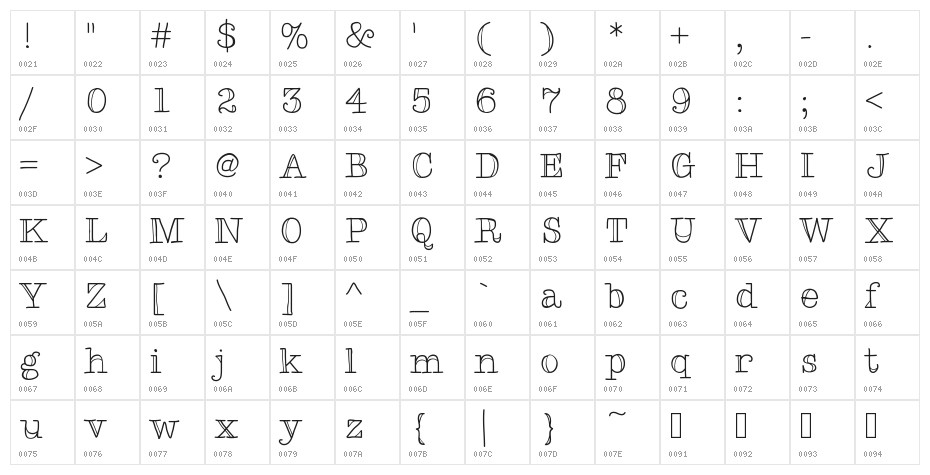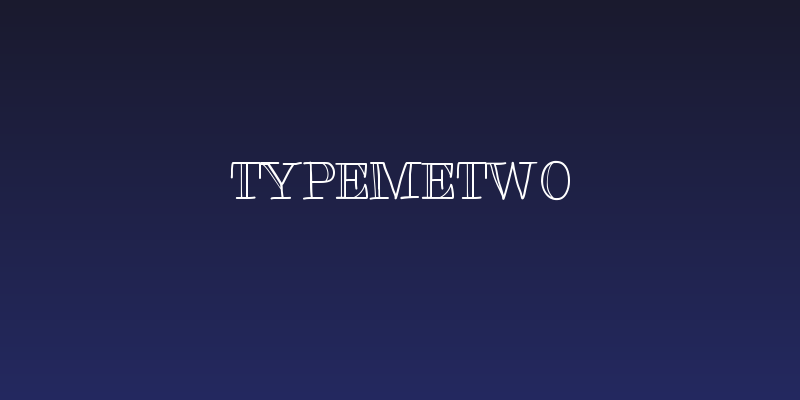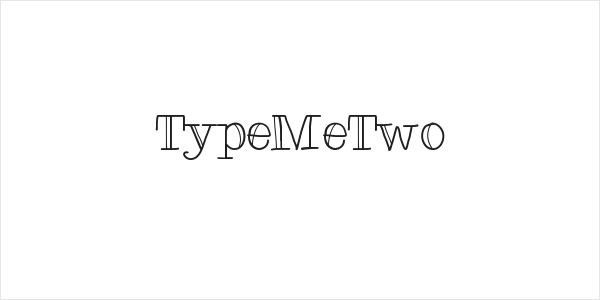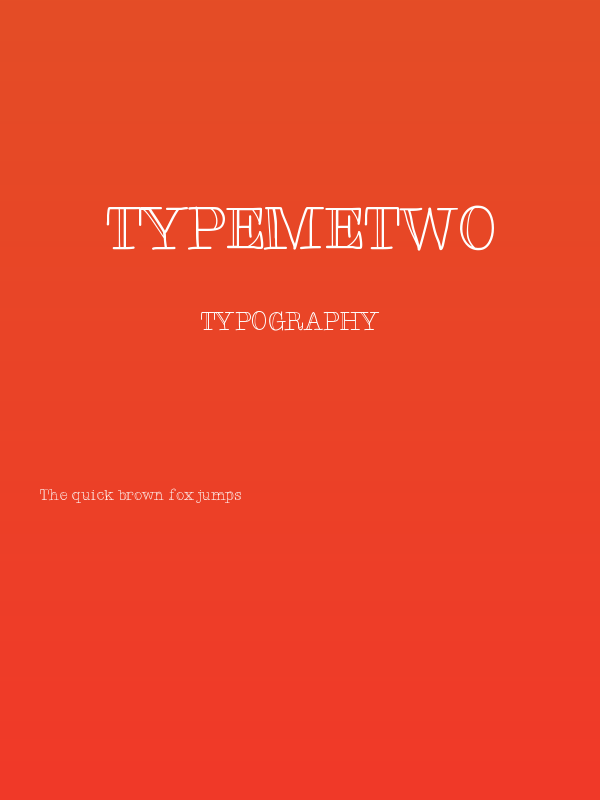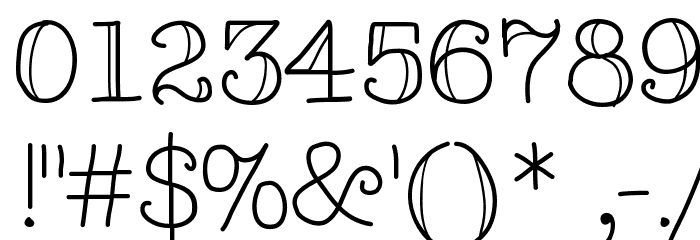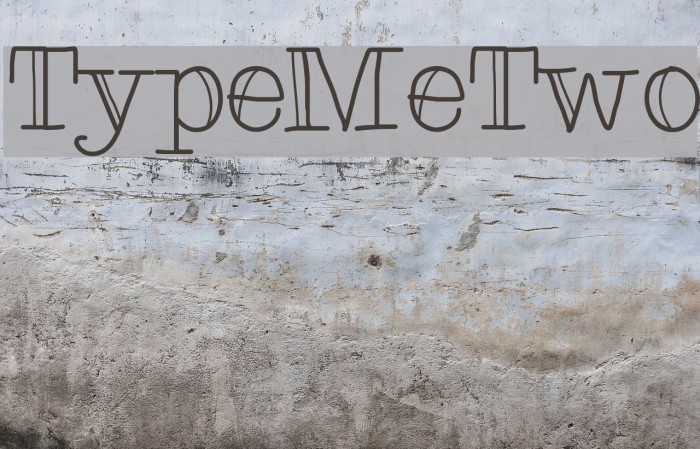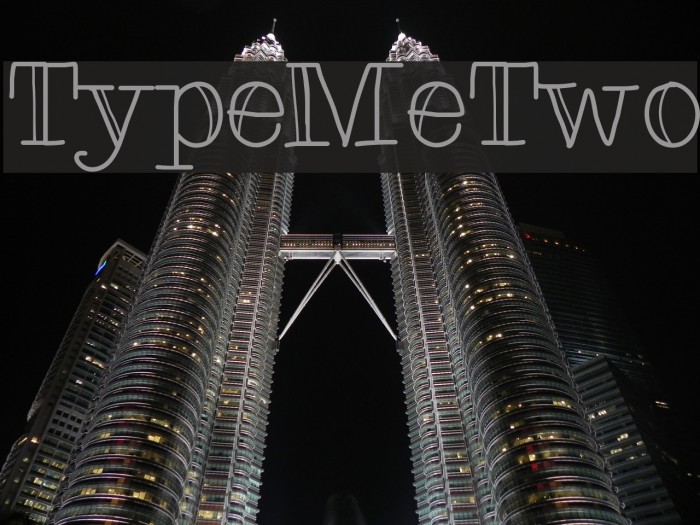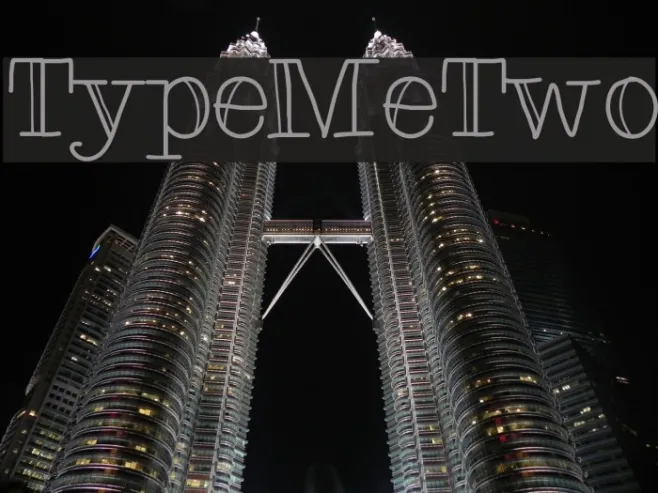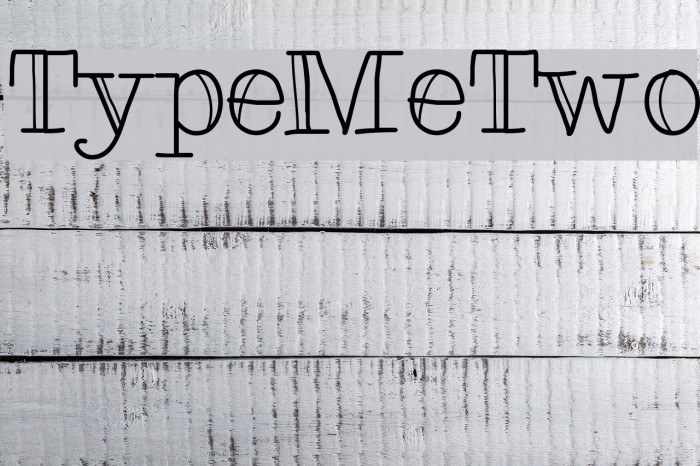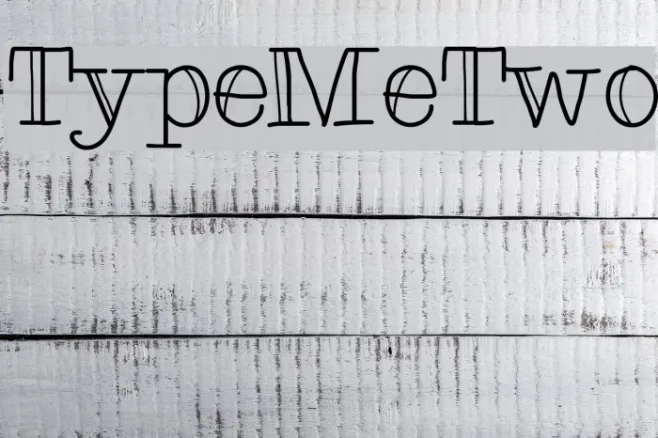
TypeMeTwo Font
TypeMeTwo Description
This font features a playful and whimsical design, characterized by its curly serifs and slightly uneven strokes. The uppercase letters have a distinctive flair, with exaggerated curves that add a sense of movement and energy. The lowercase letters maintain a consistent style, with rounded forms and a friendly appearance. Numbers are bold and easily readable, with a unique twist that matches the overall theme. Special characters are creatively designed, adding to the font's charm. This font is perfect for projects that require a touch of fun and creativity, making it ideal for children's books, playful branding, and artistic posters.